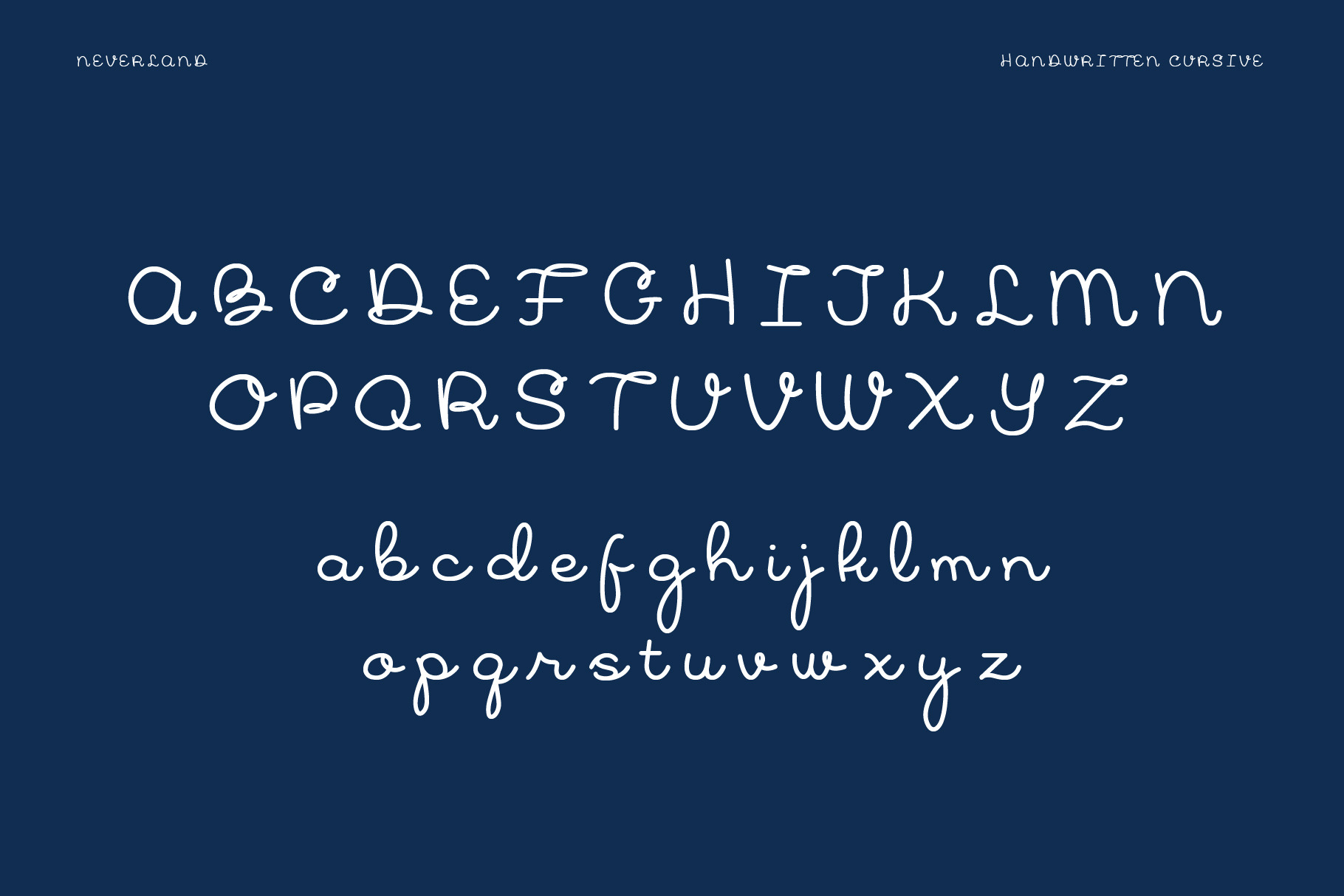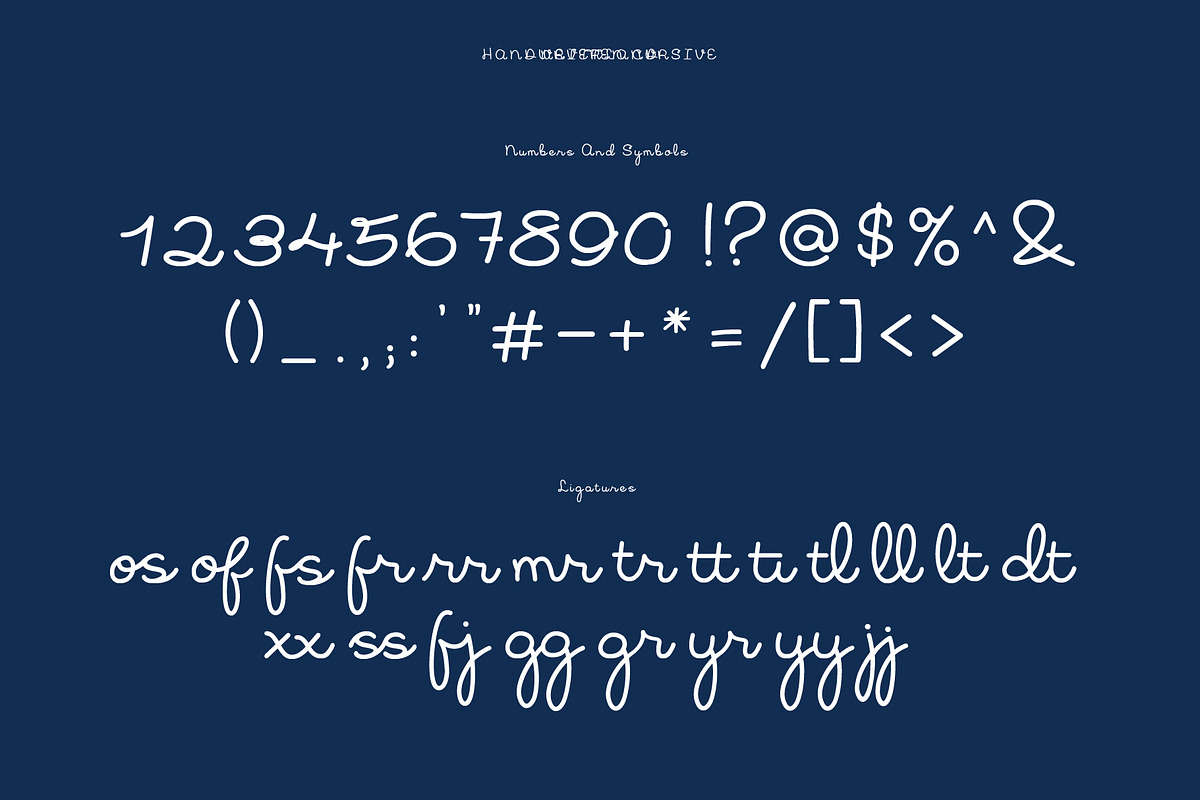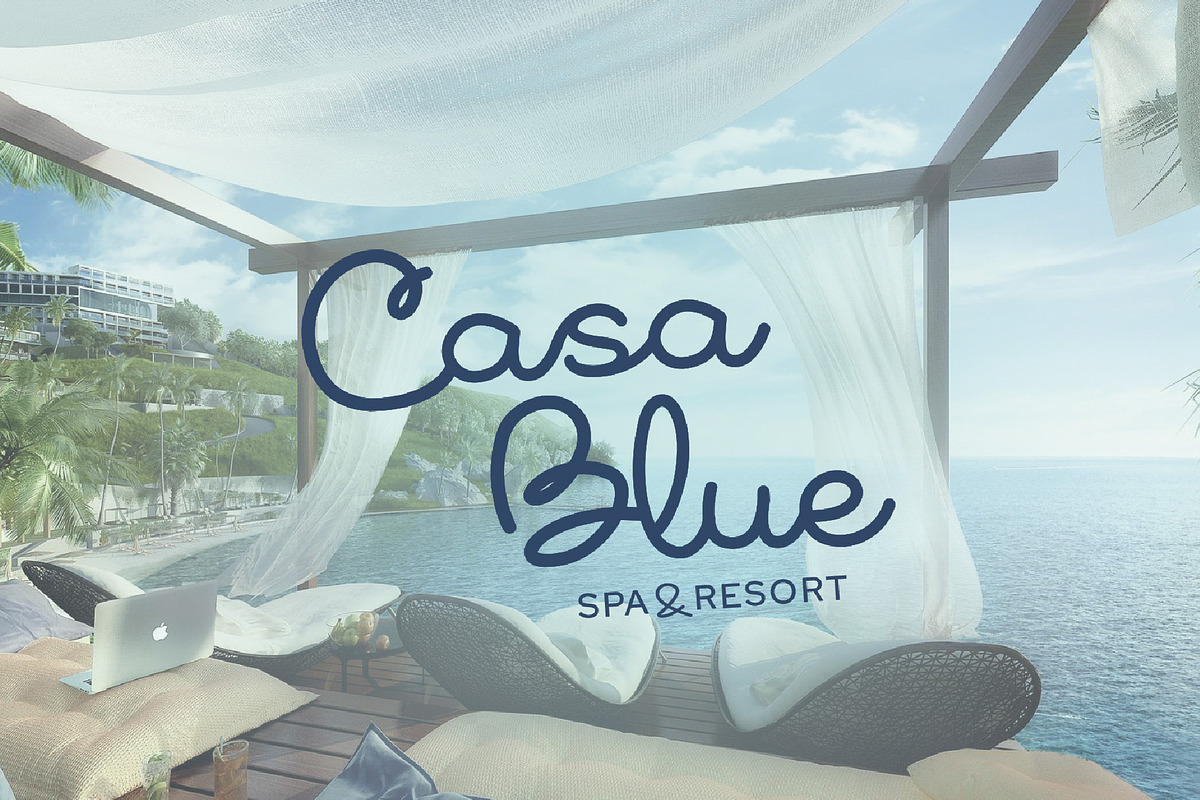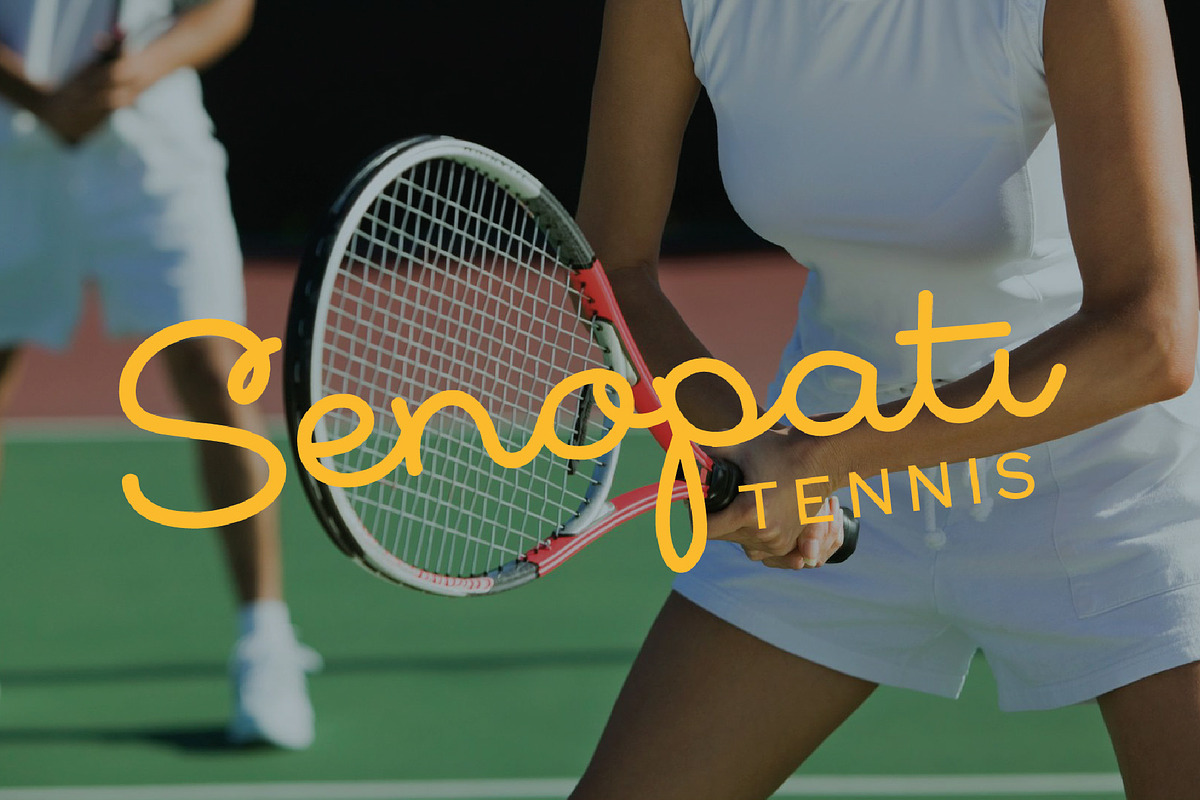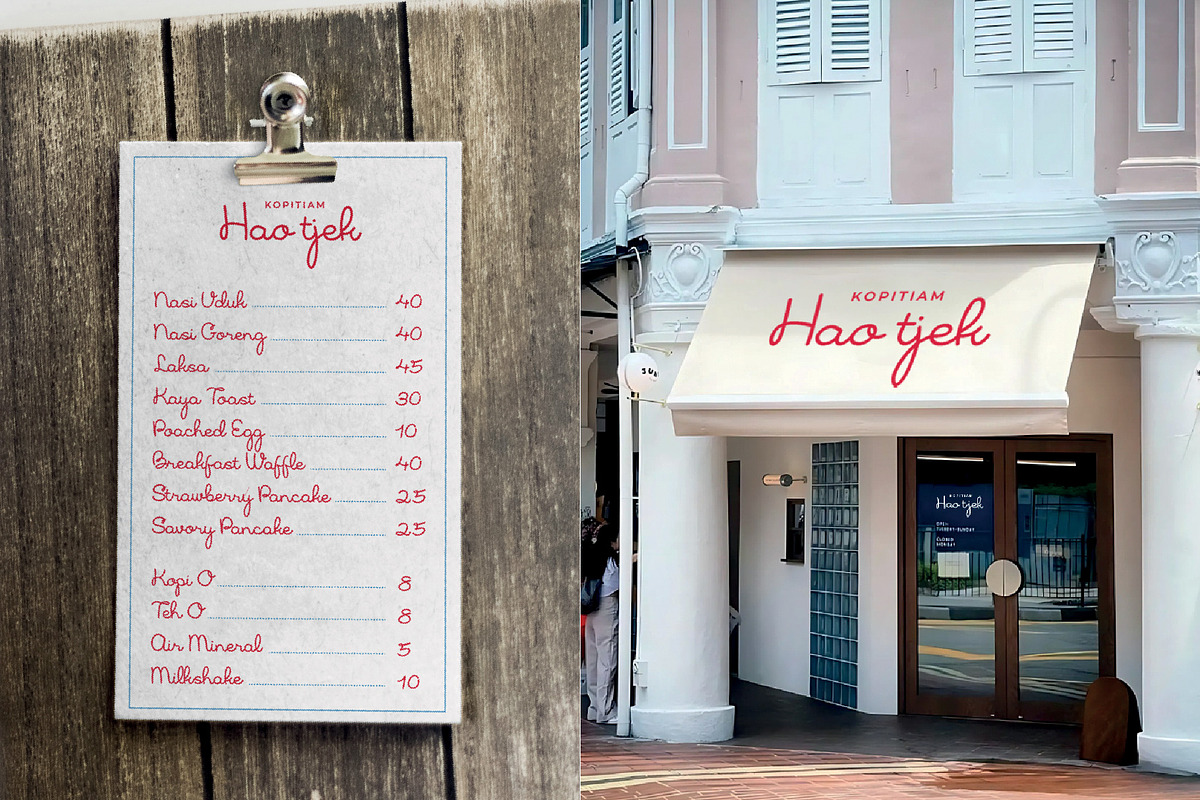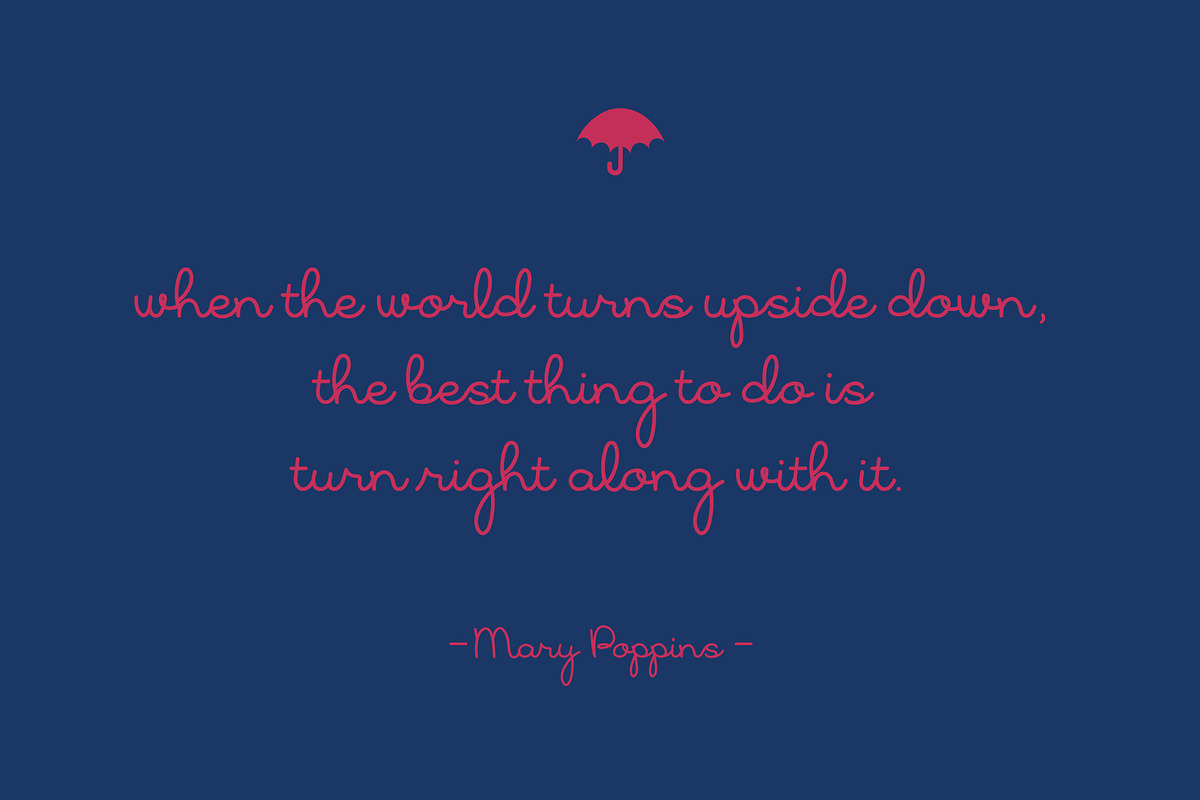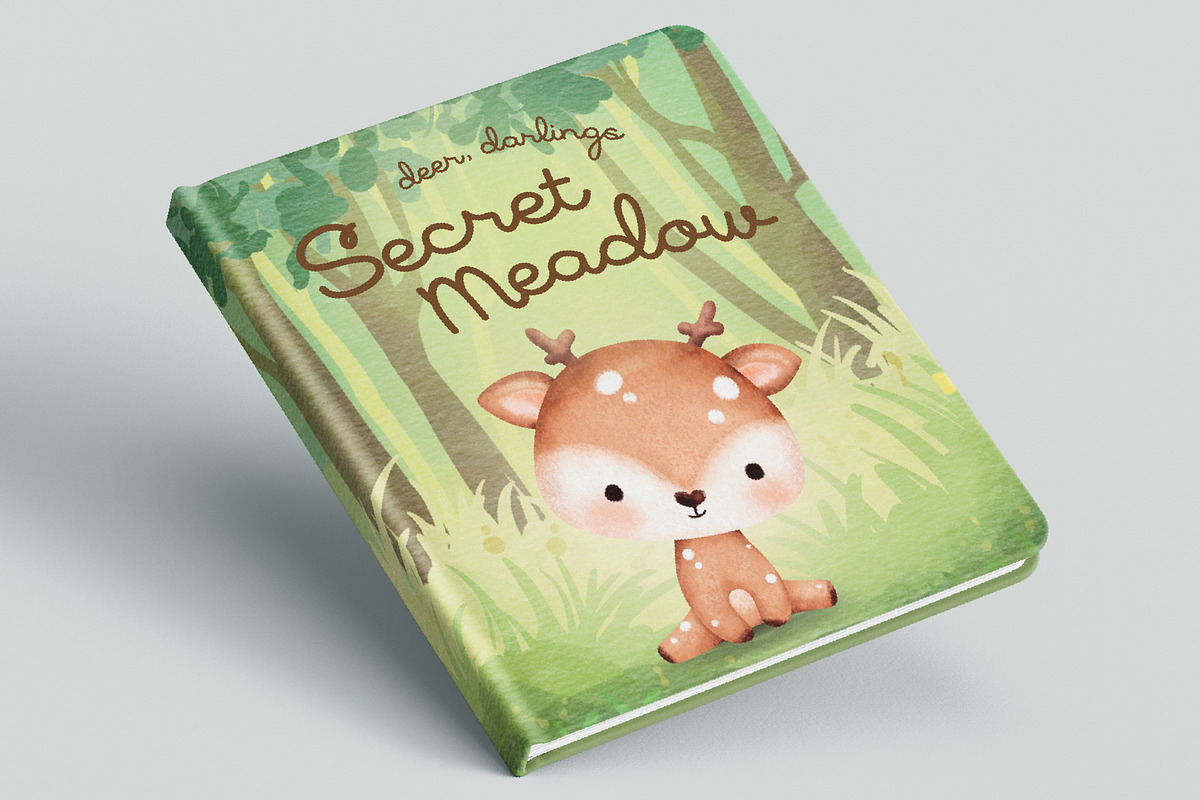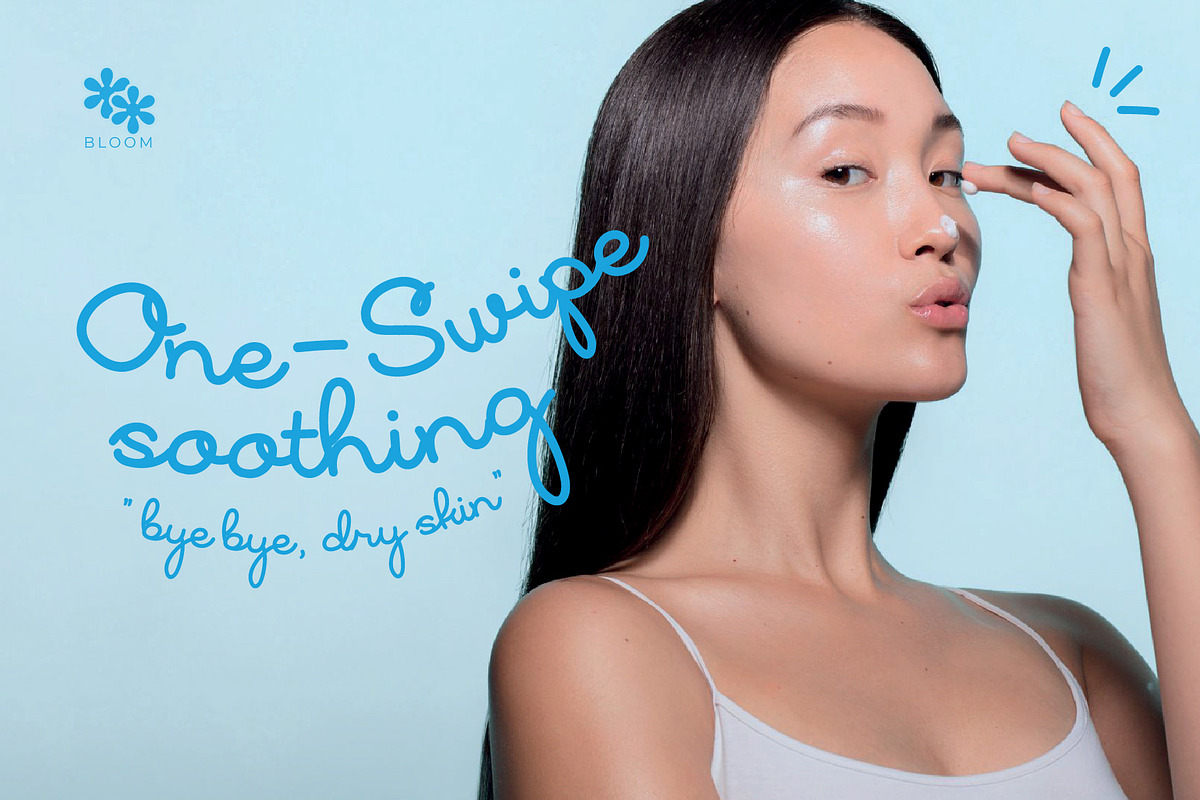
Neverland Cursive Font
Neverland is a semi-handwritten cursive font that beautifully captures the enchanting spirit of childhood tales like Peter Pan and Mary Poppins, blending timeless elegance with playful, whimsical vibes.
Inspired by the delicate strokes of elementary cursive handwriting, this font is created to exudes sophisticate, yet approachable character. Neverland effortlessly balances luxury with a carefree spirit, making it perfect for designs that aim to evoke both elegance and joy.
This font is best used for personal invitations, children’s book covers, luxury branding and playful branding.
- Illustrated Printed Media
- Childhood-like Design
- Clean Template Layouts
- Whimsical Poster Design
- Personal Invitation Card
- Playful Goodies Branding
- Children’s Book Cover
Feature:
- Standard & Discretionary Ligatures